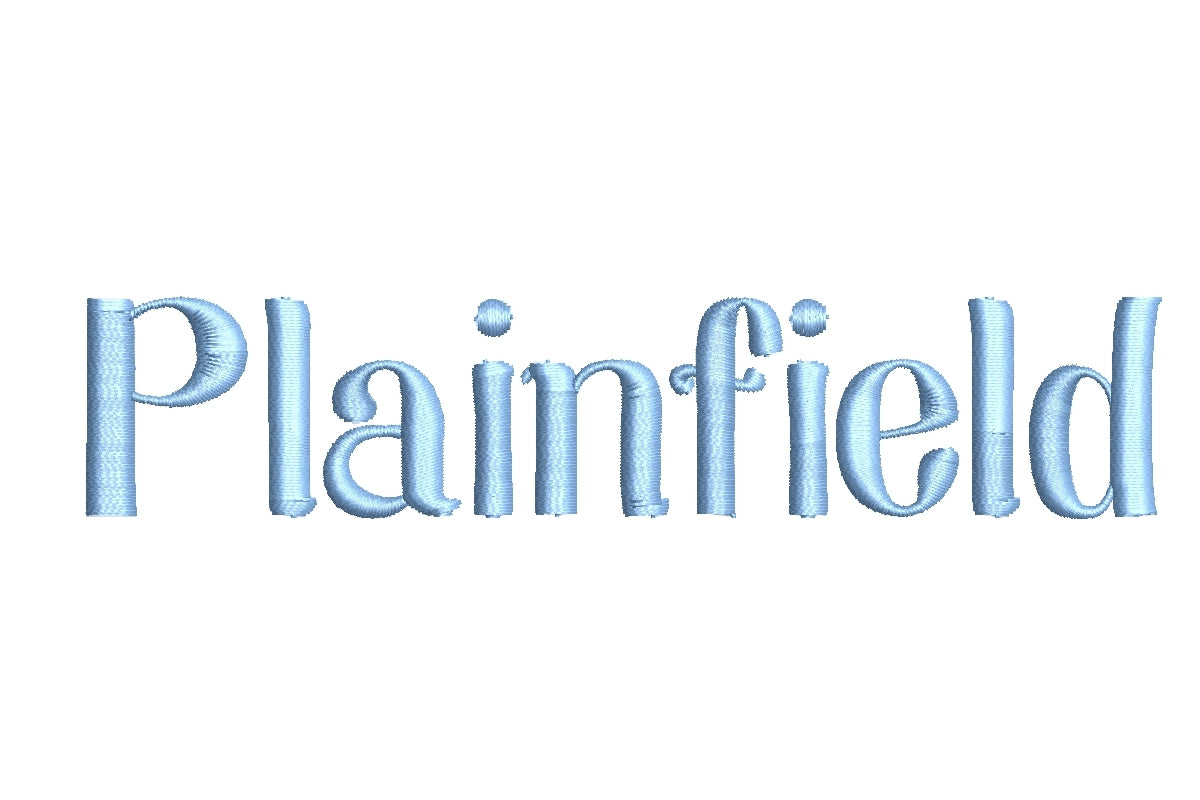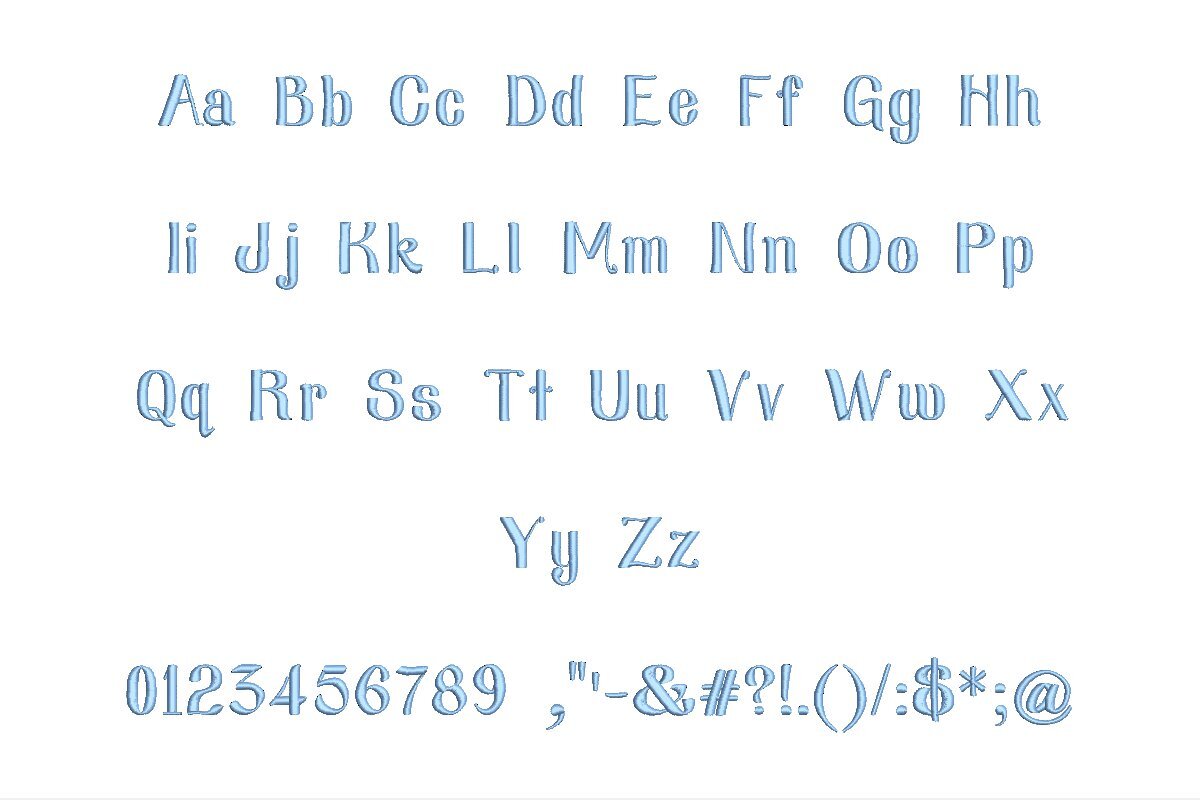
Elevate your embroidery with the Plainfield ESA font, meticulously crafted for seamless integration with Wilcom Studio e4.5.6 and Hatch 3 versions and beyond. This font redefines precision and compatibility, ensuring flawless stitching quality for your embroidery projects. Its sleek design embodies timeless elegance and exceptional legibility. The ESA format guarantees exact digitization, simplifying the process of incorporation into both Wilcom Studio and Hatch. From monograms to logos and text, Plainfield ESA font streamlines your design journey, delivering unmatched clarity and style to your creations. Unleash your embroidery potential and choose Plainfield ESA font, the professional's choice for exquisite artistry.